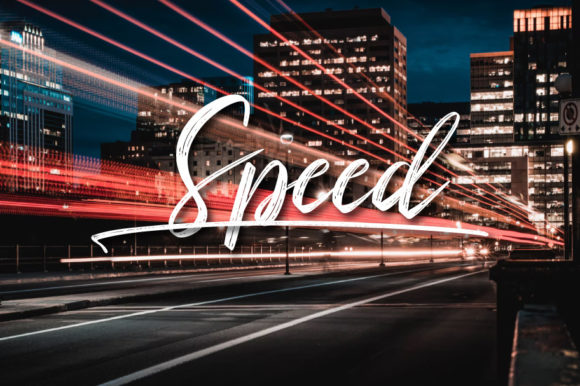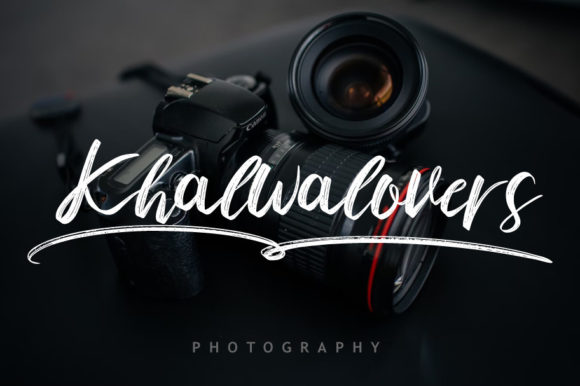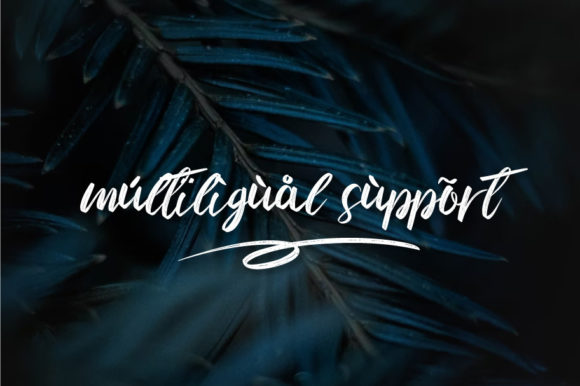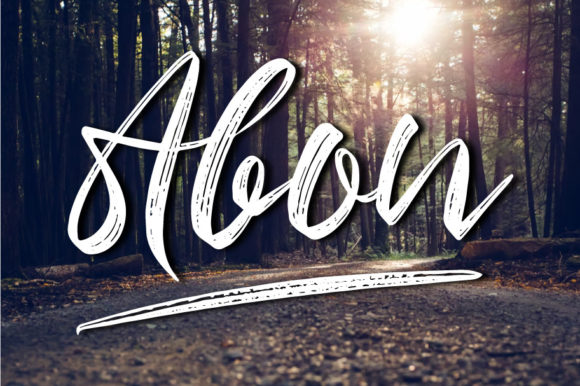
The Abon Font: A Beautifully Brushed Handwritten Delight
Have you ever been in the middle of a design project, and suddenly, you just can’t seem to find the right font? I recall a particularly frustrating moment when I was working on a wedding invitation design, and nothing seemed to fit the elegant yet playful vibe I was going for. That’s when I stumbled upon the Abon font, and it instantly became the perfect match. In this article, I’ll share my experience with this lovely brushed handwritten font, its features, and how to make the most of it in your designs.
A Personal Review of Abon Font
What I Love About Abon Font
- ✨ Elegant yet playful: Abon font strikes the perfect balance between elegance and playfulness, making it suitable for a wide range of design projects.
- ✅ PUA encoded: The font is PUA encoded, which means you can easily access all the glyphs and swashes to add a customized touch to your designs.
- 💕 Perfect for wedding designs: The font looks stunning on wedding invitations, making it a top choice for designers and crafters working on wedding-related projects.
- 🎨 Versatile: Abon font can be used on various design materials, including thank you cards, quotes, greeting cards, logos, business cards, and more.
While Abon font is an excellent choice for many design projects, there are a few minor quirks to be aware of:
- 🤔 Limited availability of certain characters: As with any font, some characters might be limited or require additional installation.
- ⚠️ May require OpenType features support: To access all the glyphs and swashes, you may need to use design software that supports OpenType features.
The Story Behind Abon Font
Abon font was designed with the intention of creating a beautiful, brushed handwritten font that captures the essence of elegance and playfulness. The designer aimed to create a font that would be perfect for wedding designs, but also versatile enough to be used in various other design projects. With its PUA encoding and OpenType features, Abon font has become a popular choice among designers and crafters.
PUA (Private Use Area) encoding allows font designers to include additional characters and glyphs in the font file. This means that users can access a wider range of characters and swashes, making it easier to add a customized touch to their designs.